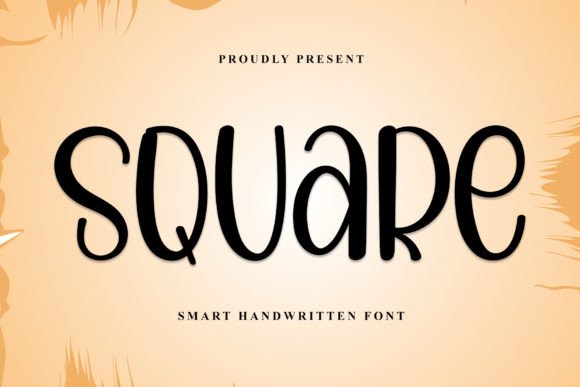
If you're looking for the perfect font to add a touch of elegance and uniqueness to your Christmas cards, look no further than Square Font! Created by PiPi Creative, this script font is the epitome of beauty and sophistication.
With its neat and flawless hand-drawn style, Square Font is sure to capture your heart and elevate your design projects. Whether you're designing a Christmas card, wedding invitation, or logo, this font will add a touch of class to your creations.
Square Font is incredibly versatile, making it perfect for any project. Its timeless and distinct style is ideal for adding a touch of charm and sophistication to your designs. Impress your clients and customers with this captivating font, and watch as your projects come to life!
But don't take our word for it - try Square Font for yourself and fall in love with its elegant touch. This font will quickly become your go-to for all your design needs, especially for those special occasions like Christmas cards.